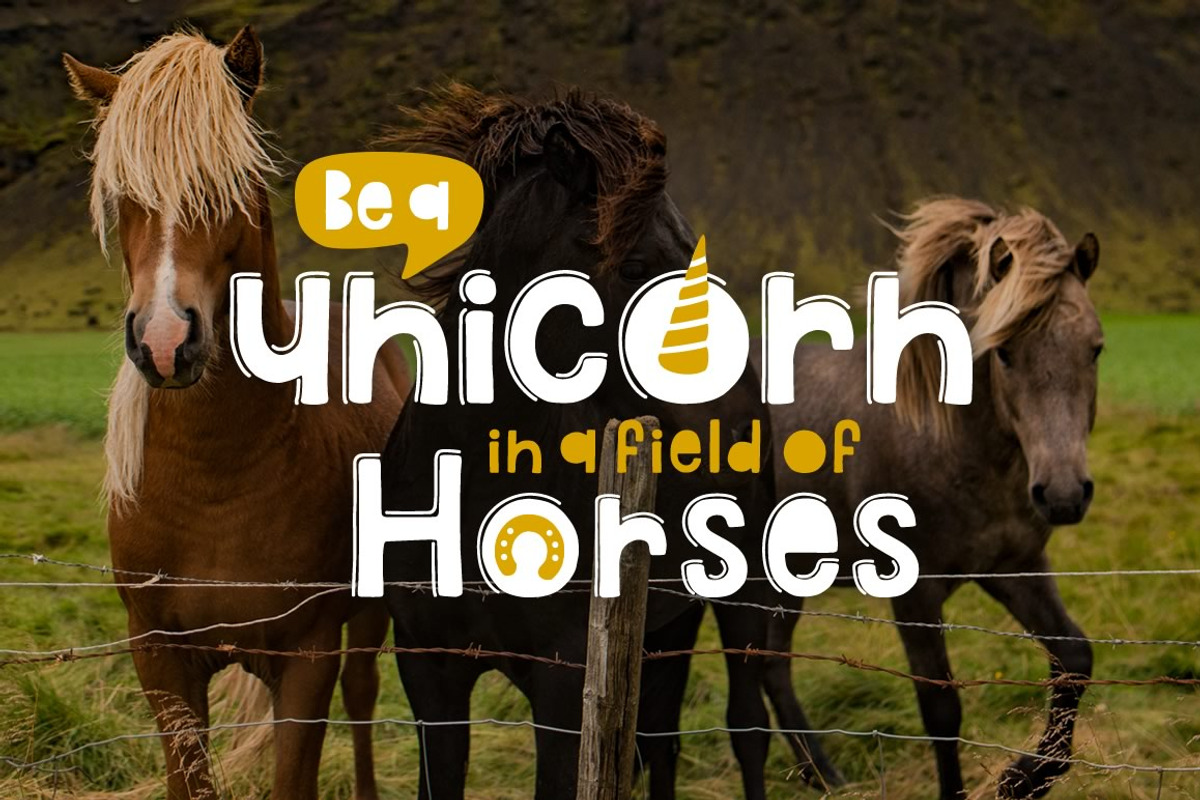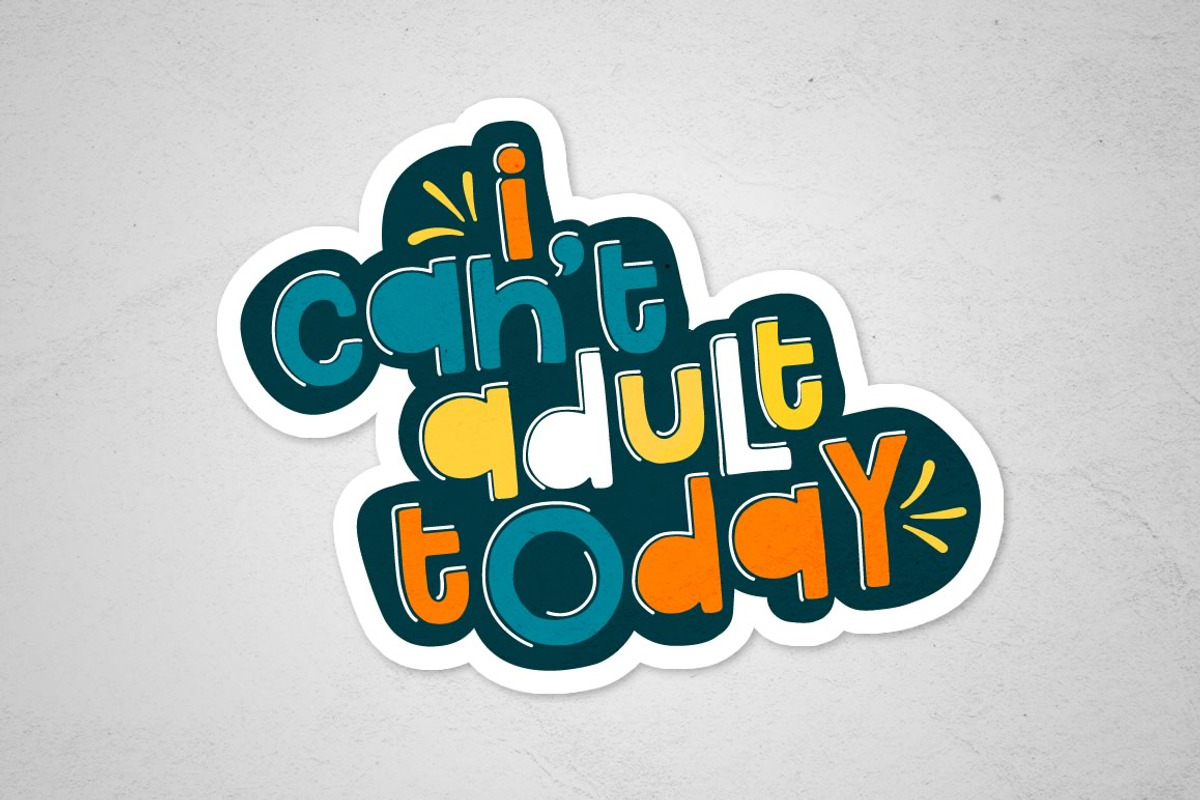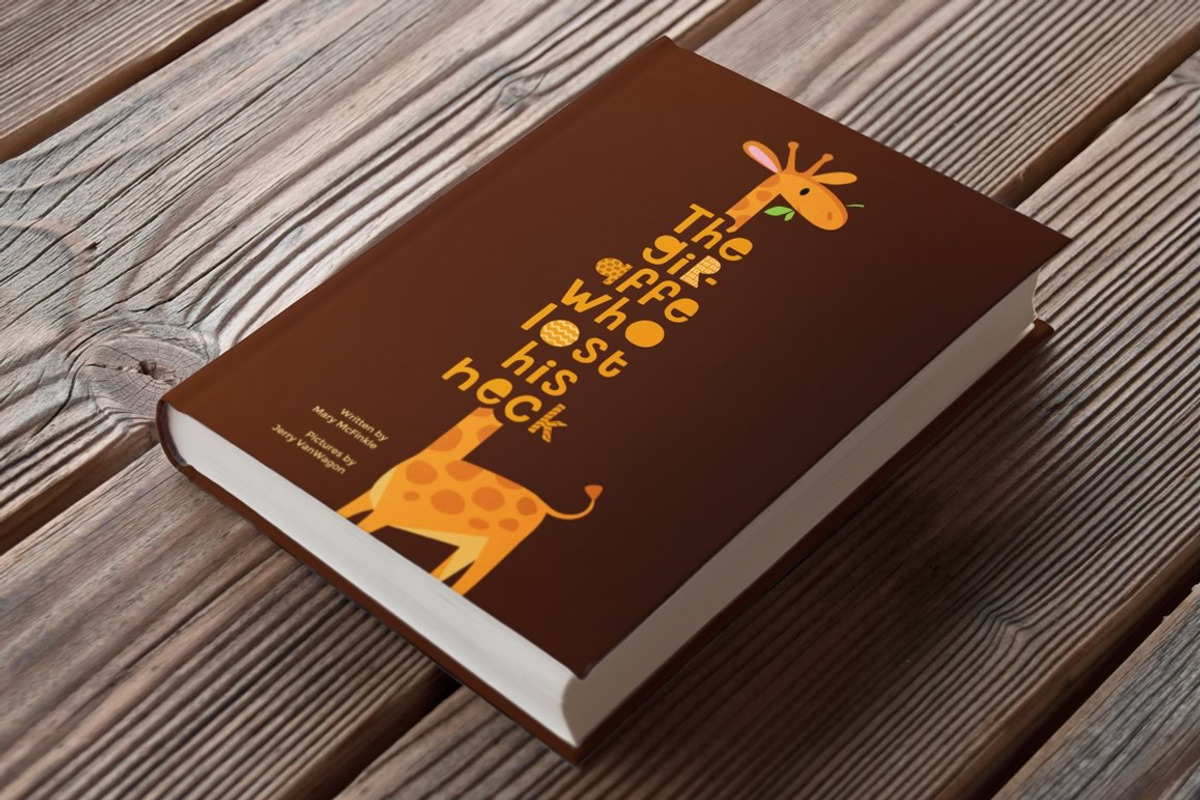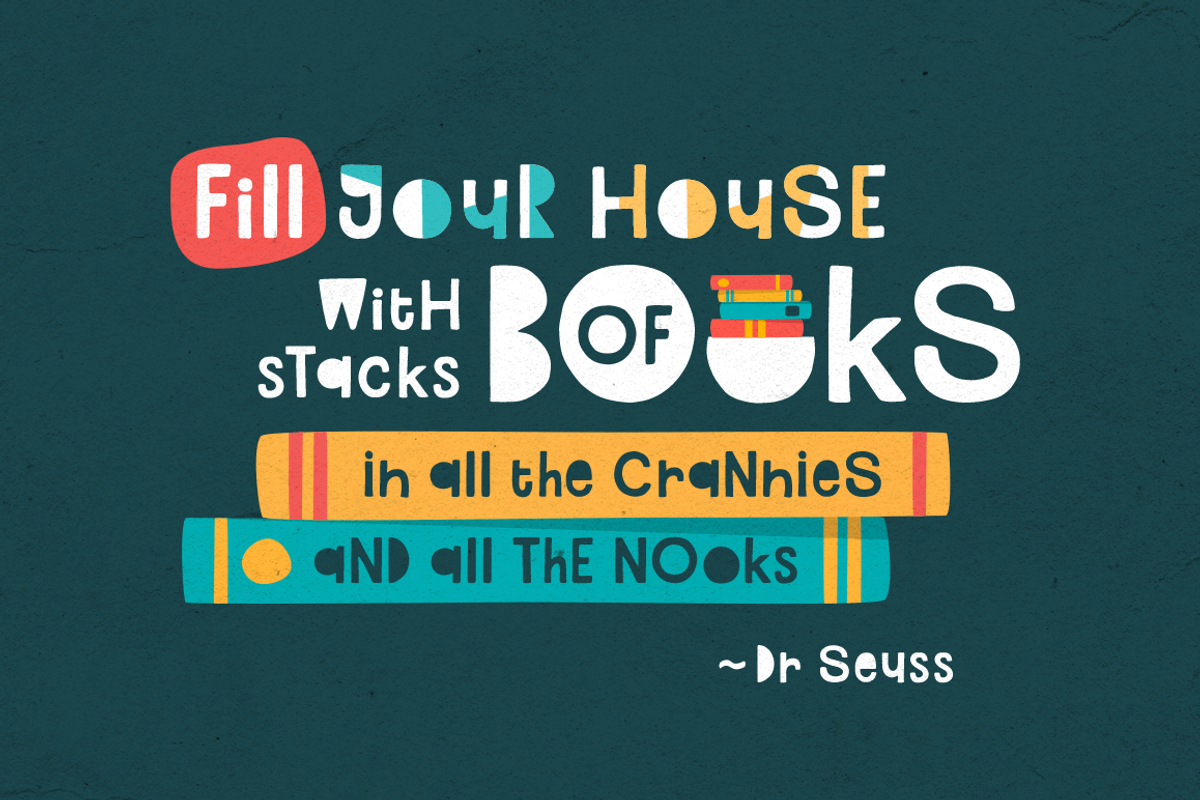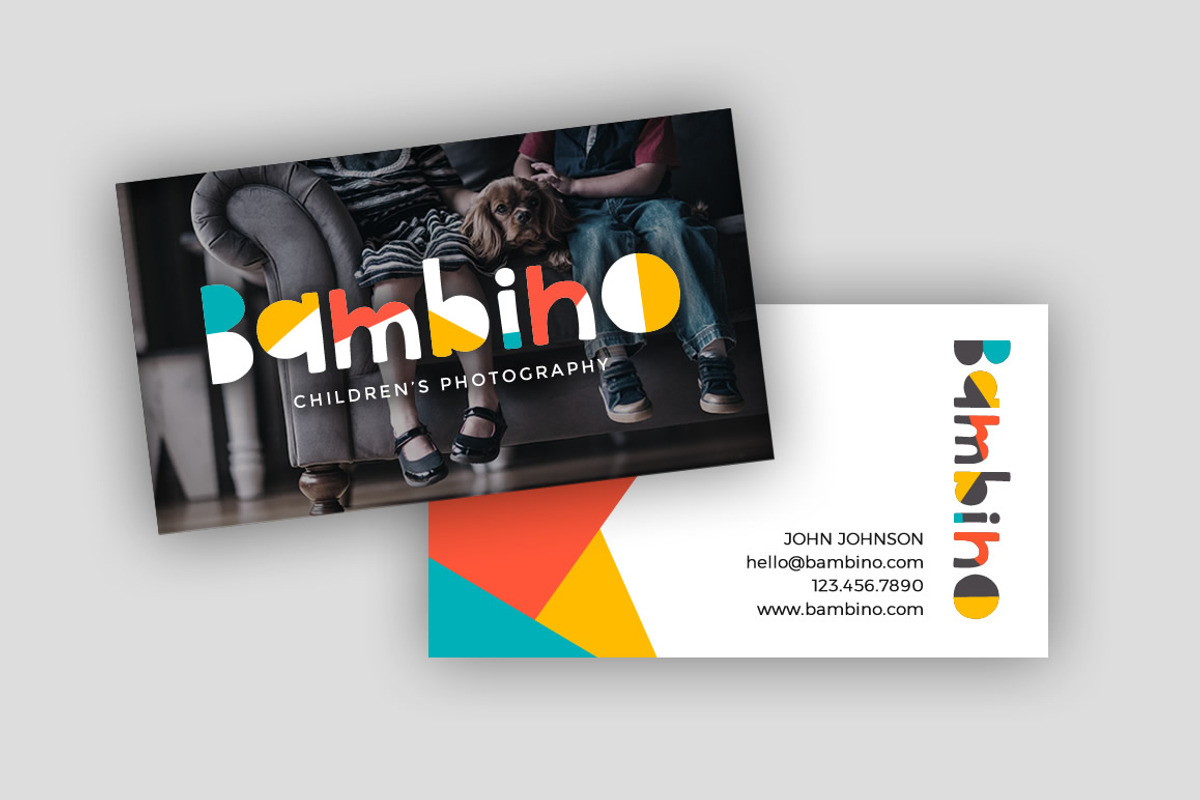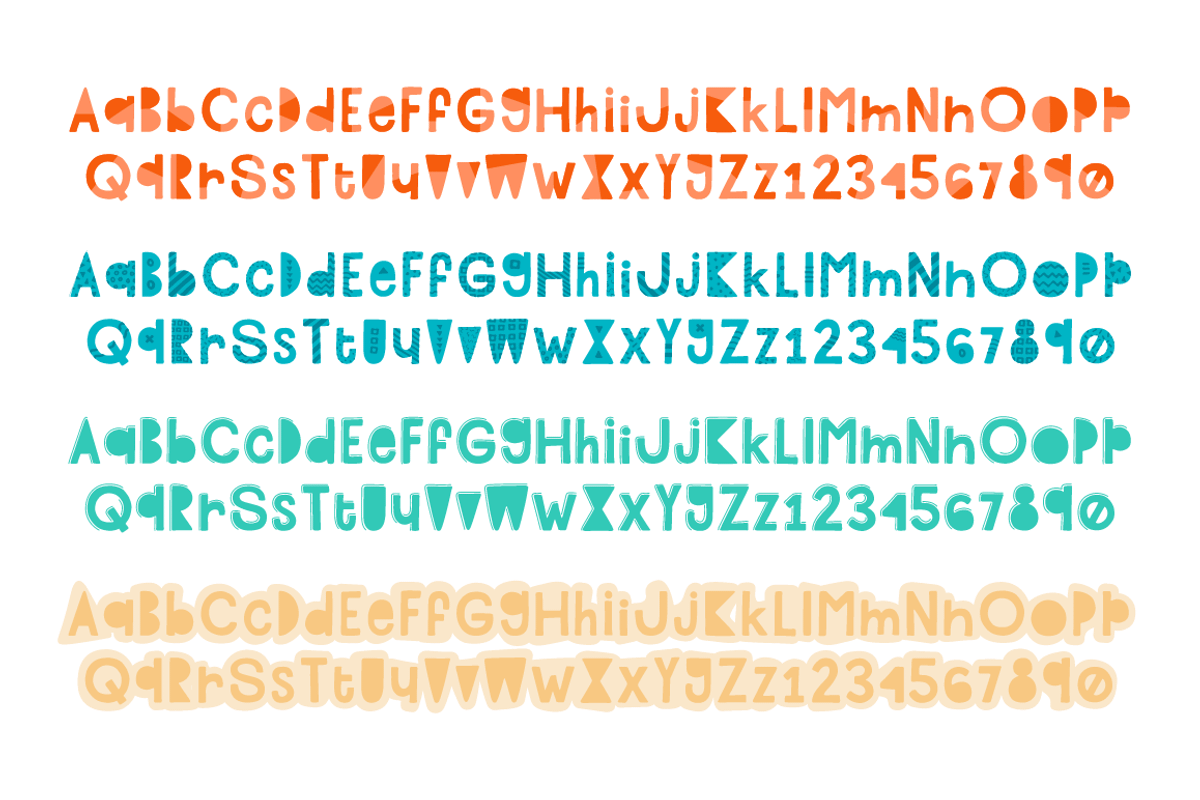
Highflier Font
Highflier Font by Denise Chandler is a font selected for branding, posters, packaging, typography.
Why Highflier Font is worth a look
Highflier Font by Denise Chandler fits naturally into Branding, posters, packaging, typography.